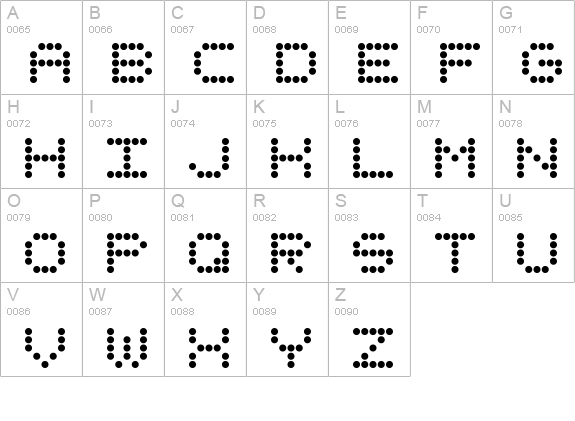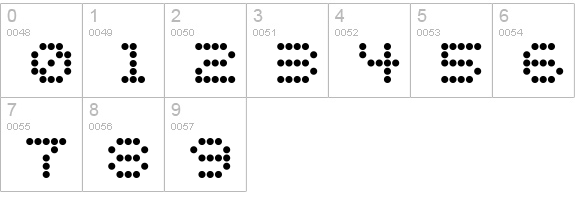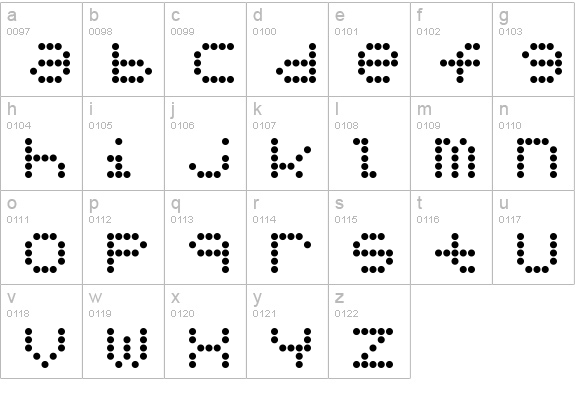
URLYbird Font Details
URLYbird font is a stunning display typeface that combines modern aesthetics with a touch of whimsy. Its unique and playful letterforms make it perfect for creating eye-catching headlines, logos, and promotional materials. This versatile font is suitable for a wide range of design projects, from websites to print materials. What sets URLYbird font apart is not just its captivating design, but also the fact that it is available for free. Yes, you read that right! This incredible font can be downloaded for free at FontsMarket.com. This means that you can elevate your designs without having to spend a penny. Downloading URLYbird font is quick and easy. Simply visit FontsMarket.com, search for URLYbird font, and click on the download button. Once downloaded, you can use this font in any design software or application of your choice. Its high-quality outlines ensure that your text will look clear and sharp, whether it's displayed on a website or printed on a poster. Whether you're a professional designer or a hobbyist, URLYbird font is a must-have in your font collection. Its versatility and charm will bring a fresh and unique touch to your projects. So why wait? Head over to FontsMarket.com and download URLYbird font for free today!